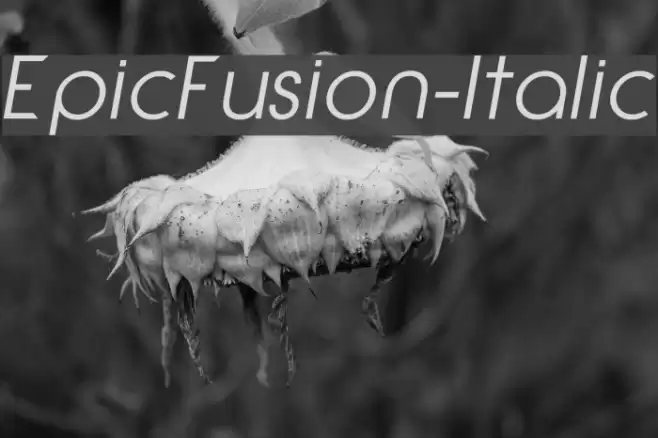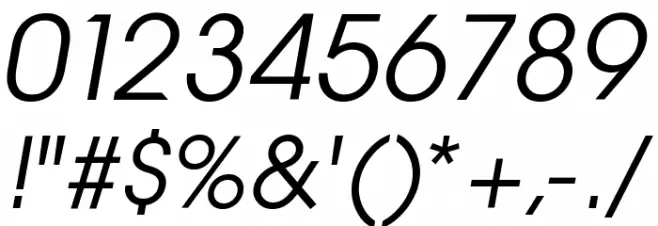
EpicFusion-Italic Font
EpicFusion-Italic Description
This font exhibits a sleek and modern design with a distinct italic slant, giving it a dynamic and forward-moving appearance. The characters are crafted with smooth curves and clean lines, providing a sense of elegance and sophistication. The uppercase letters are bold and assertive, while the lowercase letters maintain a harmonious balance with their slightly rounded forms. The numerals are clear and easy to read, making them suitable for various applications. Special characters are well-integrated, maintaining the overall aesthetic of the font. The consistent stroke width across characters ensures readability and versatility.
A sleek, modern italic font with smooth curves and clean lines from Uncategorized fonts.
- Proposed Projects: Ideal for branding, advertising, and editorial design projects where a modern and elegant touch is desired.
- Use Case: Headlines, Logos, Editorial design